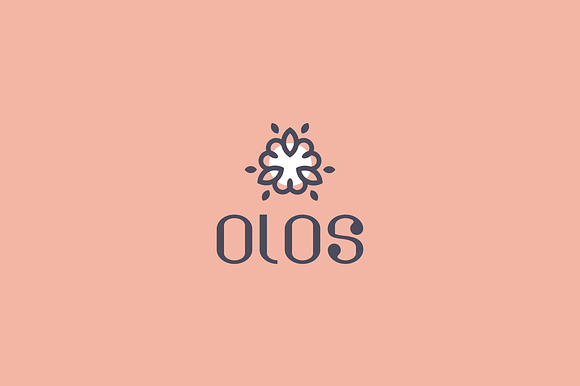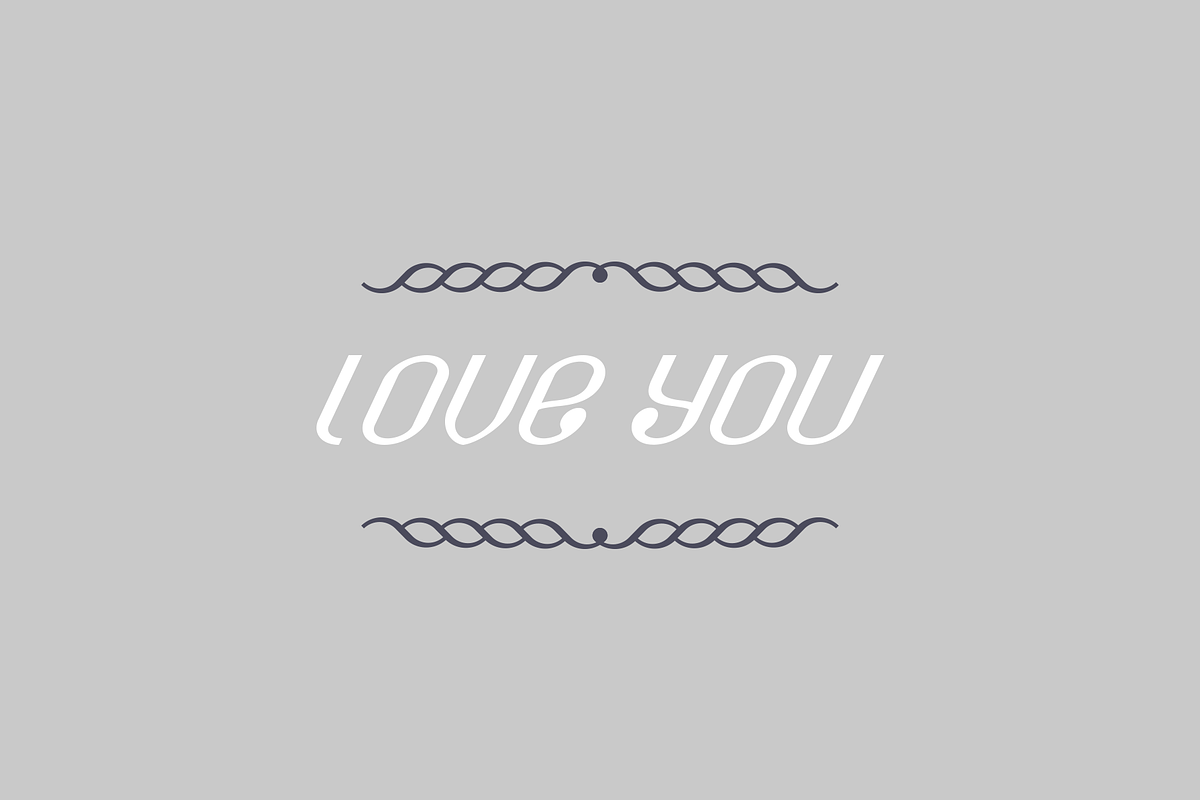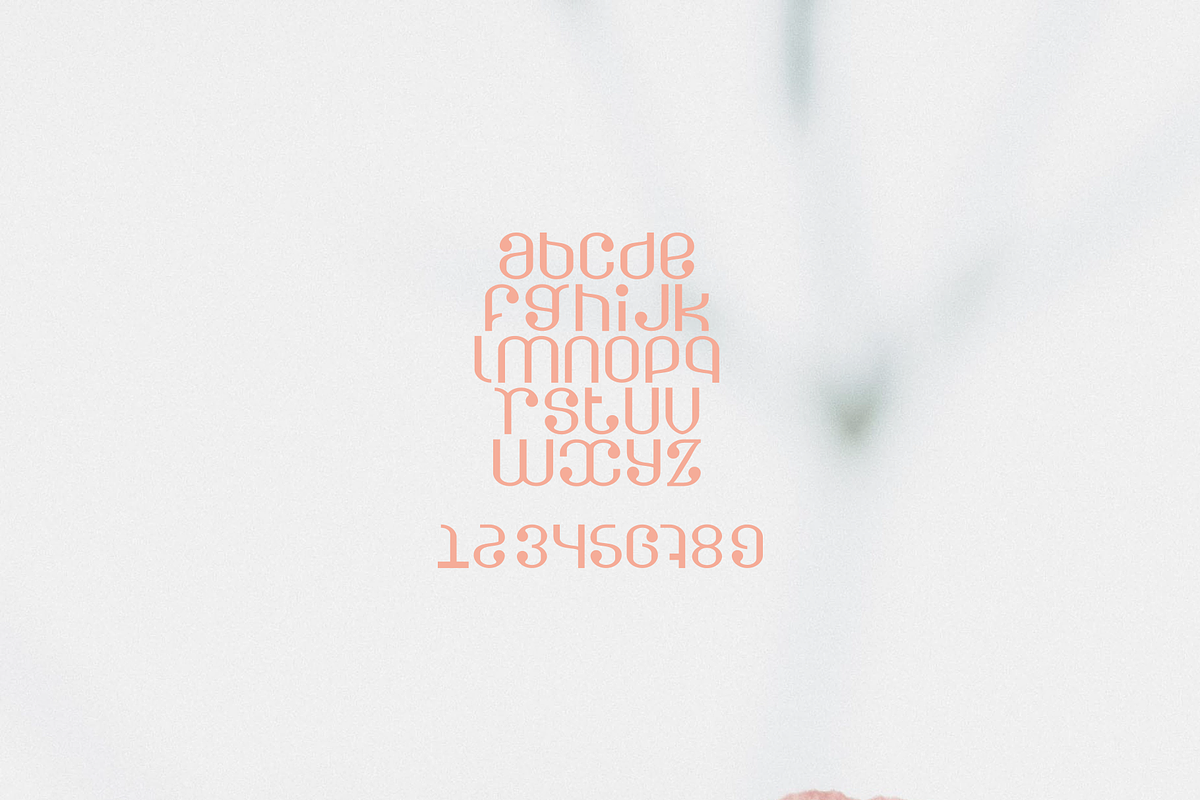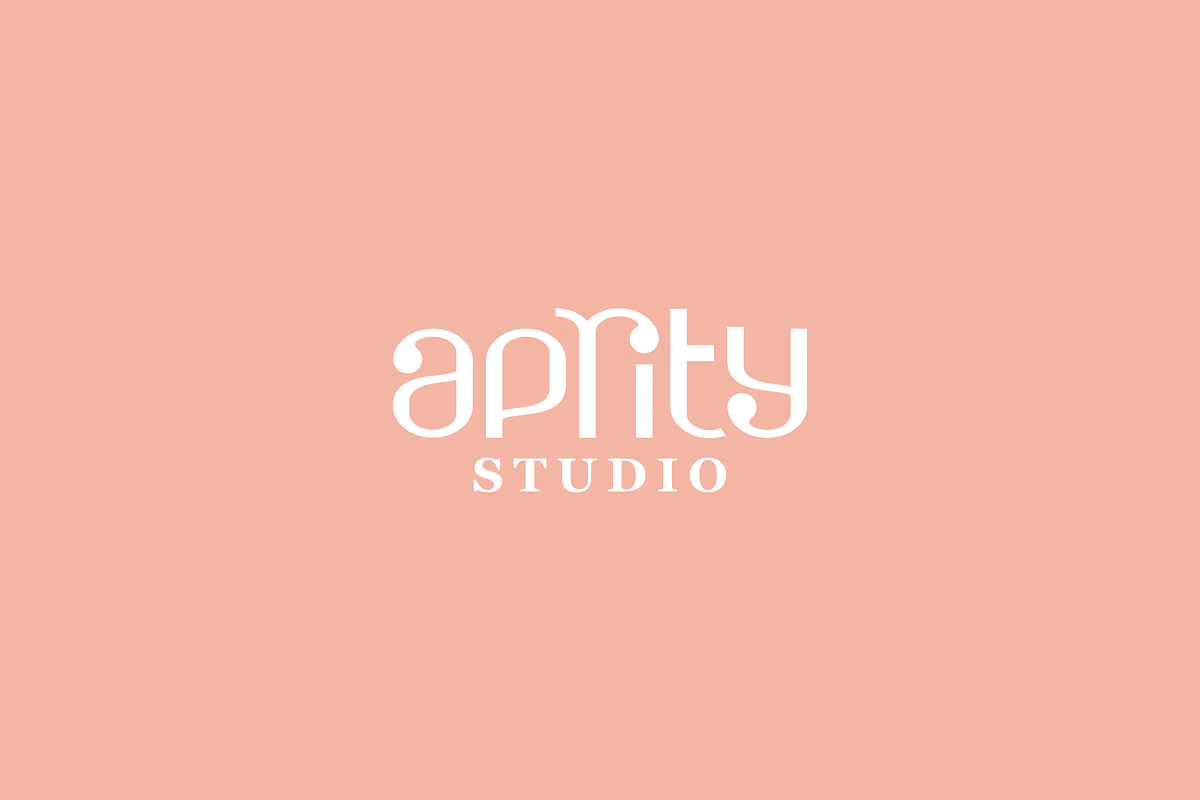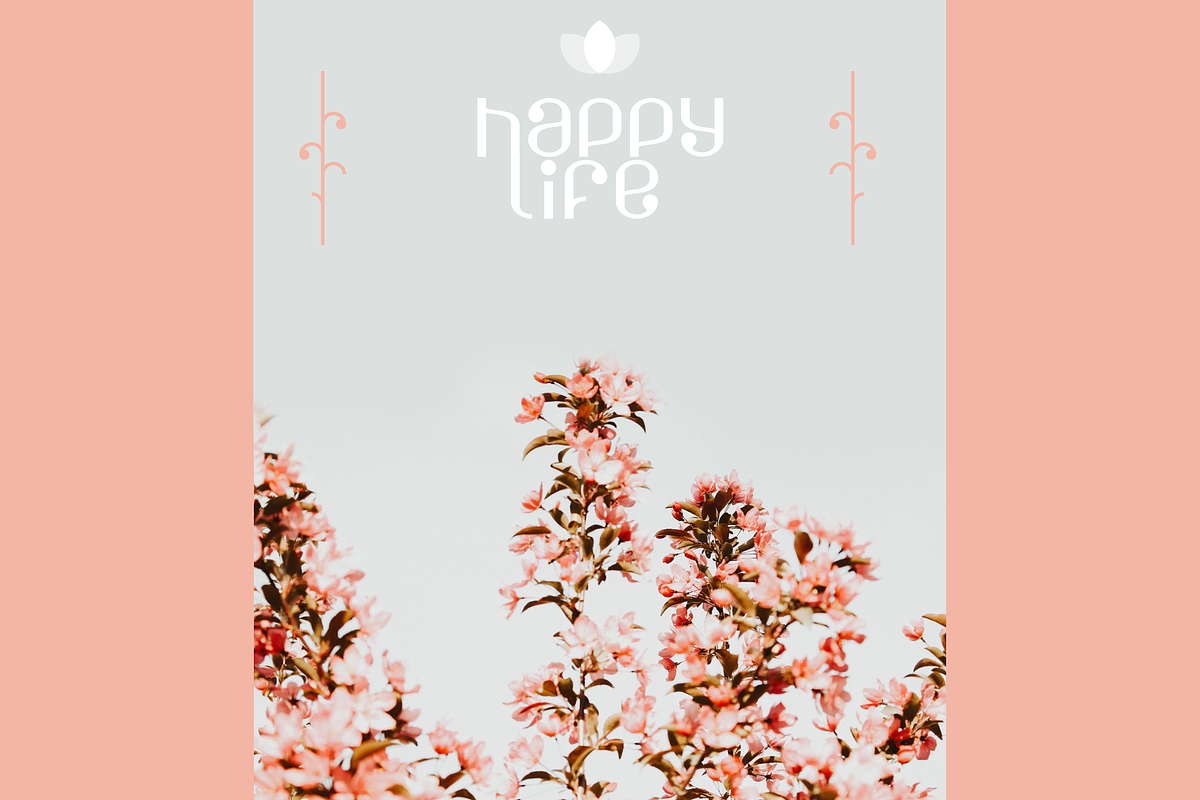
Olos font for logo
Olos font is created by a logo designer for other logo designers or people who need a font to use in a logo. The font can be edited on to some very unique connections of the characters to create a great logotype.
Olos font is a mix of small letters and capital letters, it has a very unique look and can Olos is an elegant font created as a mix of modern and classic fonts.
The font is made to be used on small and special places such as logos , headlines , covers etc...
- The font can be edited on to some very unique connections of the characters to create a great logotype.
Why Olos font for logo is worth a look